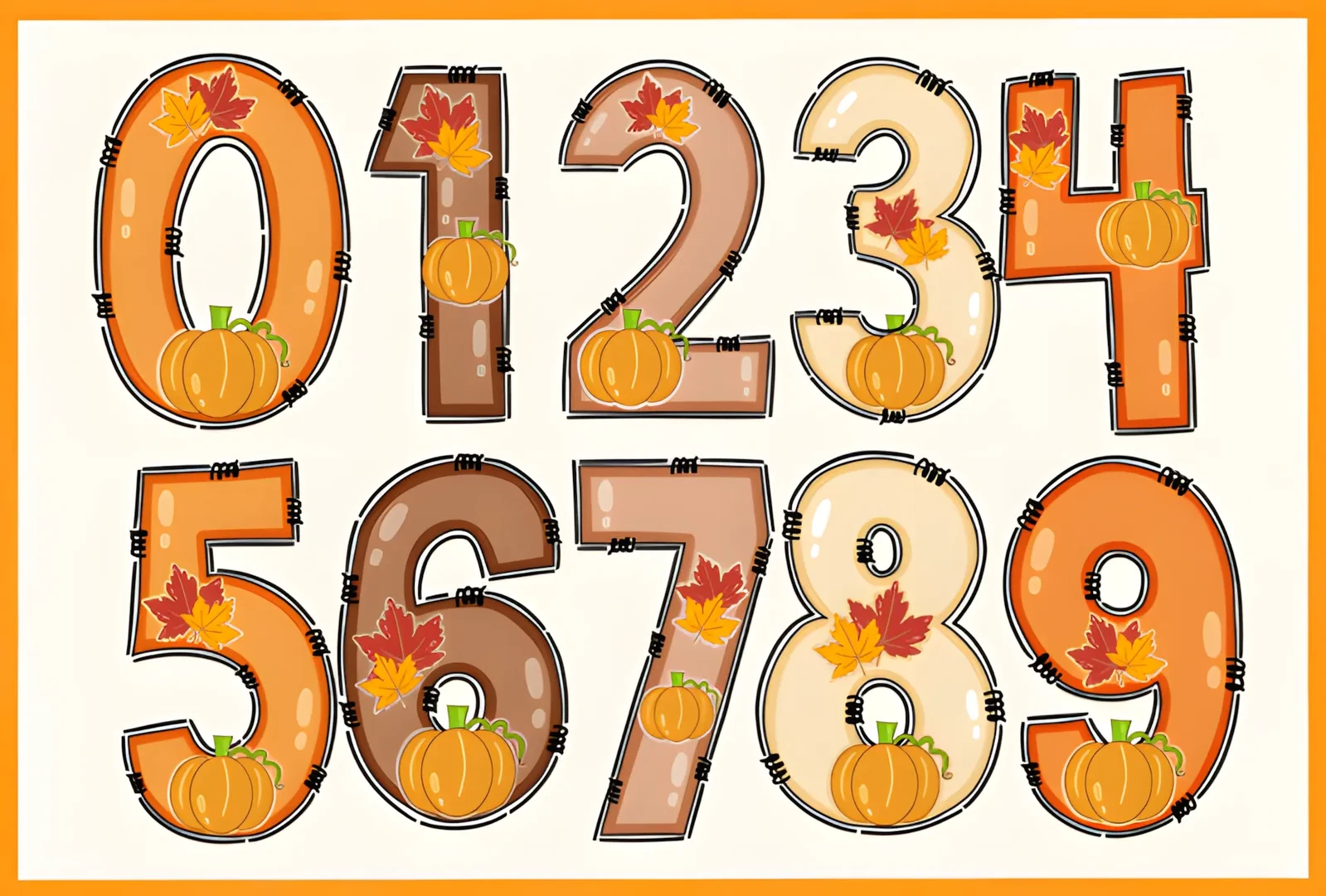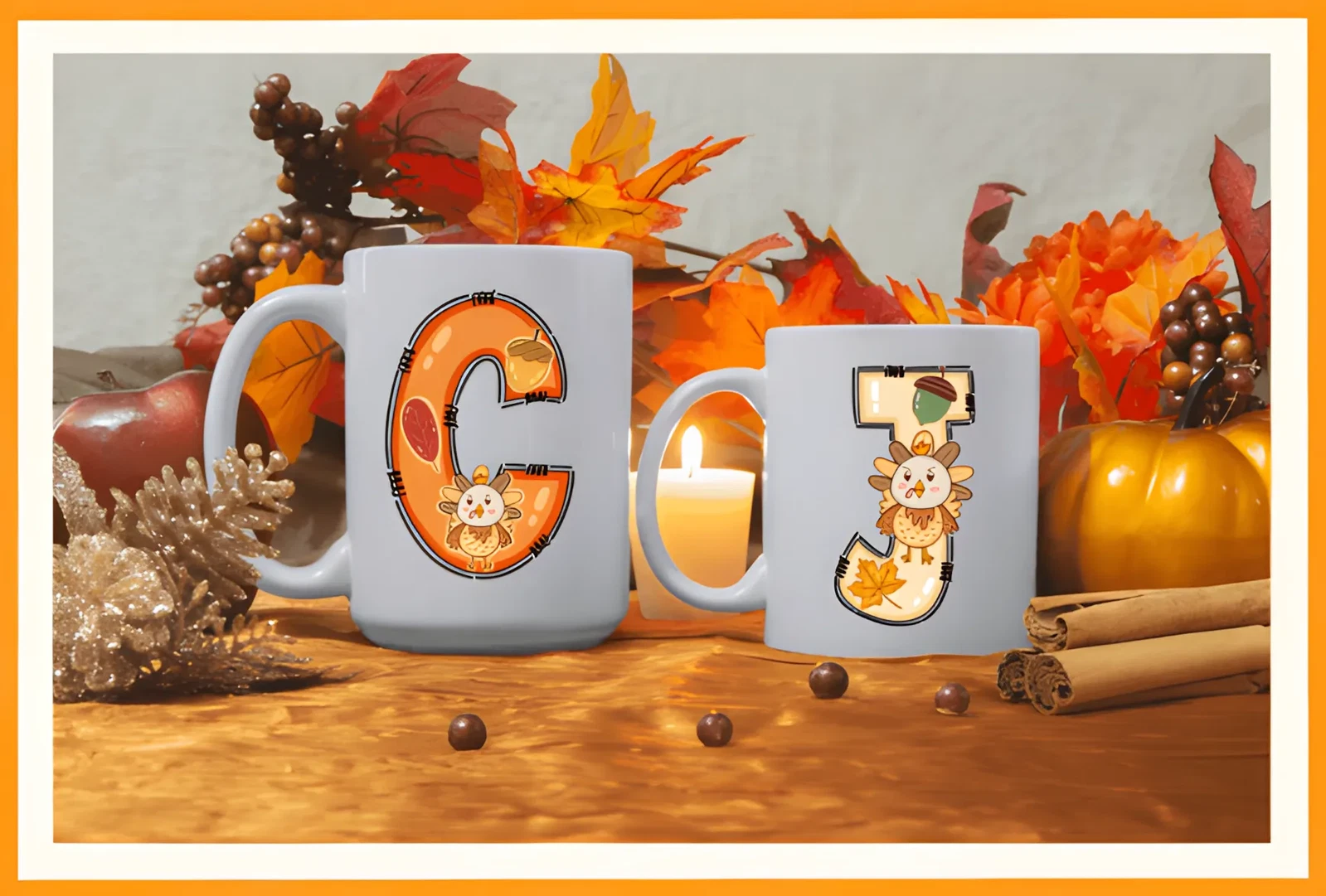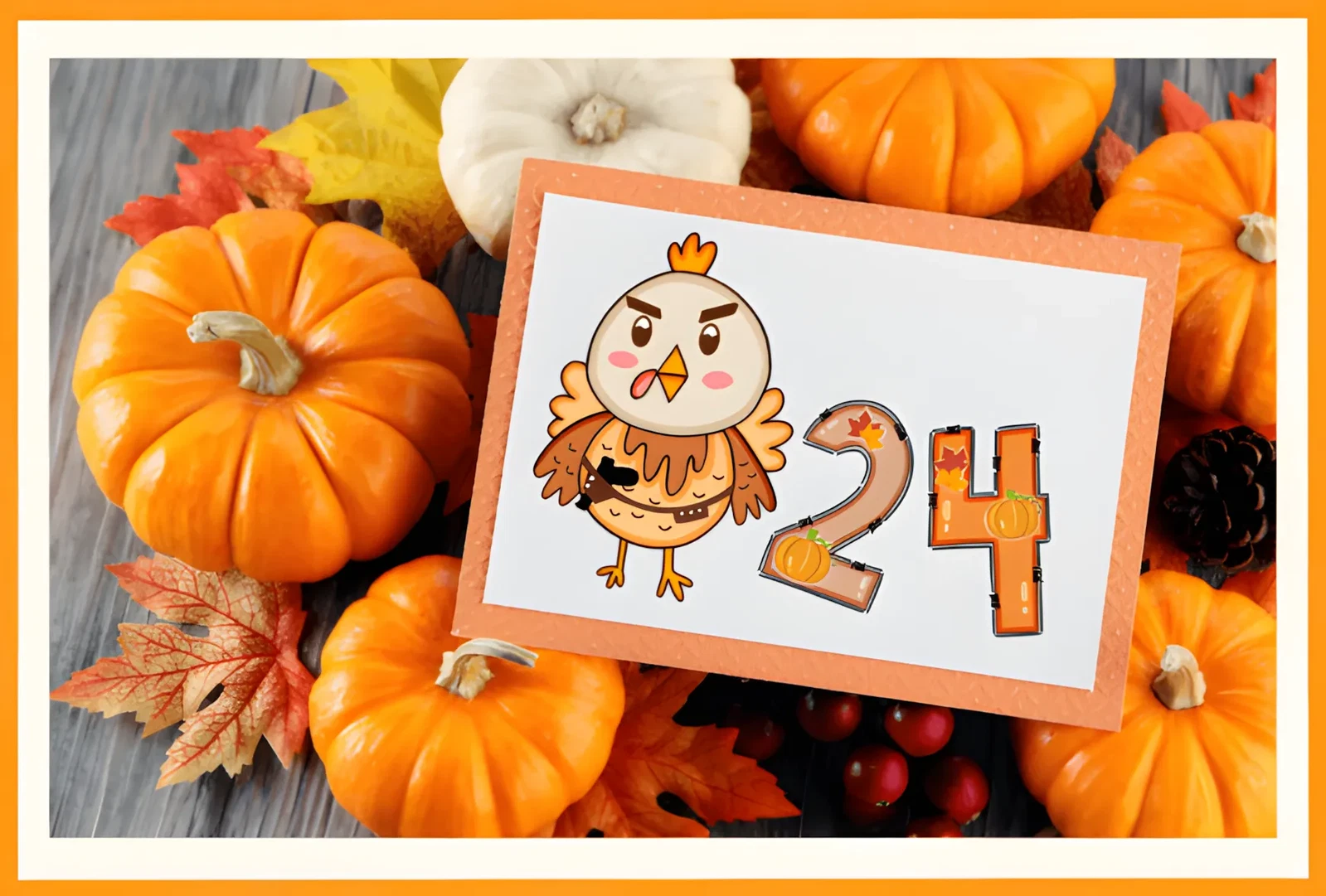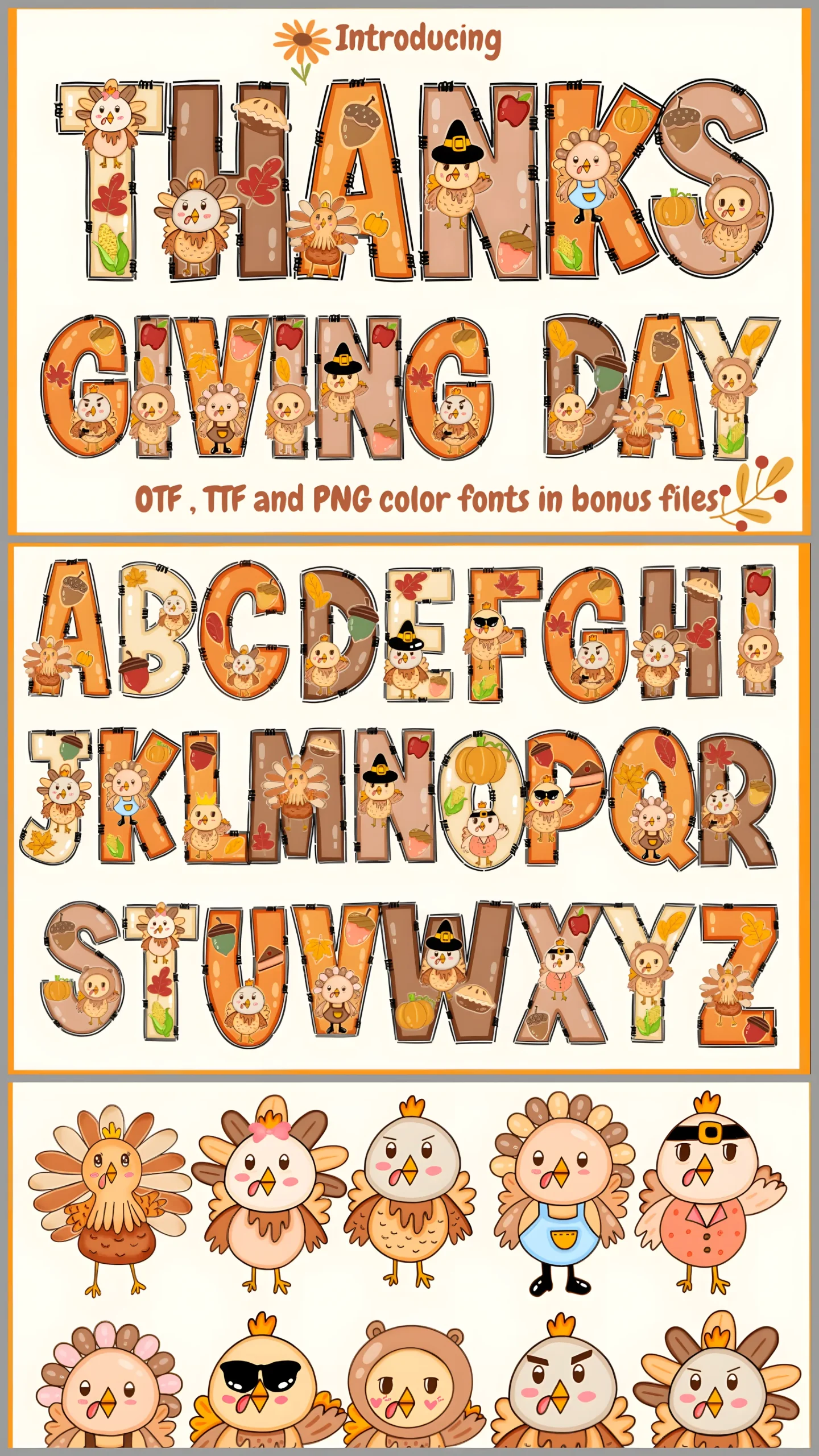
Some holiday fonts focus on tradition, while others aim to create joy and playfulness. Thanksgiving Day Font clearly belongs to the second category. This is a cute and colorful display typeface designed to make seasonal projects feel fun, friendly, and full of life.
The font embraces chunky letterforms and cheerful illustrations, turning text into a visual element that feels perfect for children’s activities, school projects, and family-oriented designs.
Visual Style and First Impression
Thanksgiving Day Font immediately feels playful. The letters are bold, rounded, and filled with colorful decorative details that give the font a cartoon-like charm. Each character looks friendly and approachable, making the text feel warm rather than formal.
Despite the rich colors and chunky shapes, the letterforms remain easy to recognize. This balance helps maintain readability while still delivering a strong visual impact. The overall style feels joyful and authentic, designed to spark attention and curiosity.
The first impression is unmistakably cheerful and seasonal.
A Color Font Built for Fun and Creativity
Thanksgiving Day Font is designed as a color display font, meaning the decorative colors and details are built directly into the letters. When typing, the illustrated style appears automatically, without the need for extra graphics or manual coloring.
This makes the font especially useful for quick, expressive designs where time matters but visual quality still counts. The playful nature of the font makes it ideal for projects that aim to feel creative rather than polished or corporate.
Designed for Children and School Projects
One of the strongest use cases for Thanksgiving Day Font is educational content. The font was clearly created with children in mind and works especially well in:
- school projects
- classroom decorations
- worksheets and covers
- educational posters
The friendly shapes help keep attention while remaining readable, which is important for learning materials. Text feels inviting rather than intimidating, making it easier to engage younger audiences.
Practical Design Applications
Invitations and Greeting Cards
Thanksgiving Day Font works beautifully for holiday invitations and greeting cards. The playful letterforms help set a cheerful tone that fits family gatherings and seasonal celebrations.
It is especially suitable for:
- Thanksgiving invitations
- holiday greeting cards
- printable party materials
Because the font already includes decorative elements, designs can stay simple while still feeling complete.
Posters and Seasonal Graphics
For posters and seasonal announcements, Thanksgiving Day Font delivers instant context. Headlines set in this font immediately communicate fun and celebration.
It fits naturally into:
- Thanksgiving event posters
- fall festival graphics
- community announcements
- seasonal decorations
The chunky shapes ensure visibility, even when viewed from a distance.
Digital and Social Media Content
On digital platforms, Thanksgiving Day Font feels lively and eye-catching. The color details remain clear on screens, making it suitable for:
- social media posts
- story graphics
- digital banners
- seasonal promotions
The playful style helps content stand out in crowded feeds while maintaining a friendly tone.
Readability and Usage Notes
Thanksgiving Day Font is a display font, not intended for long paragraphs. It performs best in:
- titles
- short phrases
- featured text
Spacing is important. Allowing the letters enough room helps preserve clarity and prevents the design from feeling crowded. Pairing it with a clean, simple font for body text keeps layouts balanced and easy to read.
Emotional Tone and Design Feel
The emotional tone of Thanksgiving Day Font is joyful and welcoming. It feels playful, cute, and light-hearted, which makes it especially suitable for children, families, and educational environments.
Instead of focusing on tradition or formality, the font supports designs that aim to feel fun, creative, and inclusive. It naturally encourages a sense of celebration and togetherness.
It is not intended for body text, but as a colorful display font, it performs exactly as designed.
Thanksgiving Day Font turns text into celebration. With its chunky shapes, cheerful colors, and friendly personality, it brings warmth and fun into seasonal design.
For designers and educators looking for a font that feels playful, readable, and perfectly suited for children and holiday projects, Thanksgiving Day Font offers a simple and effective solution. Used thoughtfully, it helps designs feel joyful, engaging, and full of seasonal spirit.